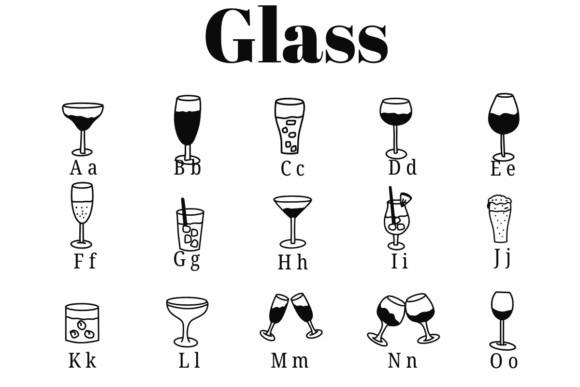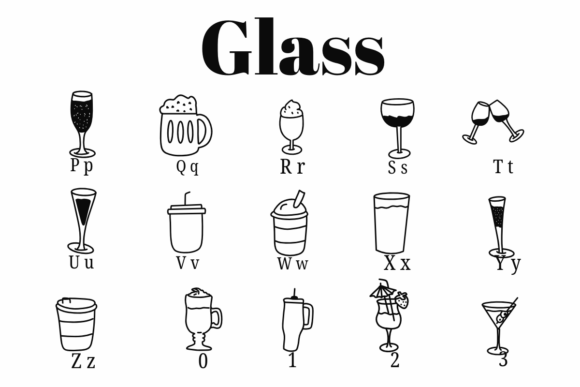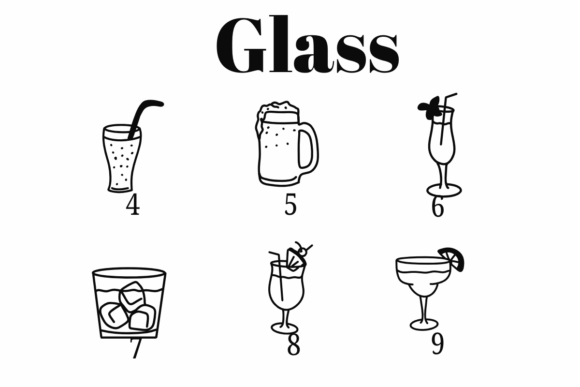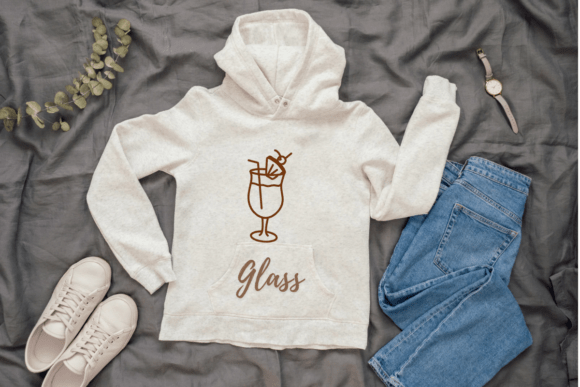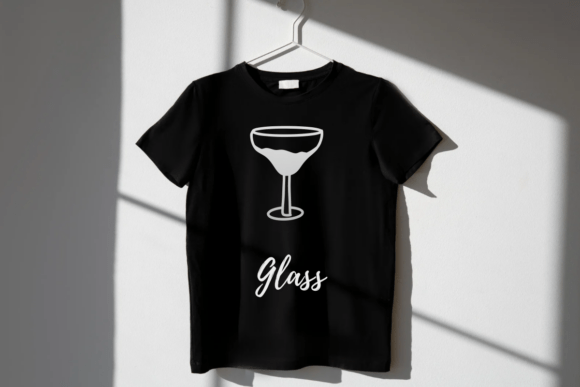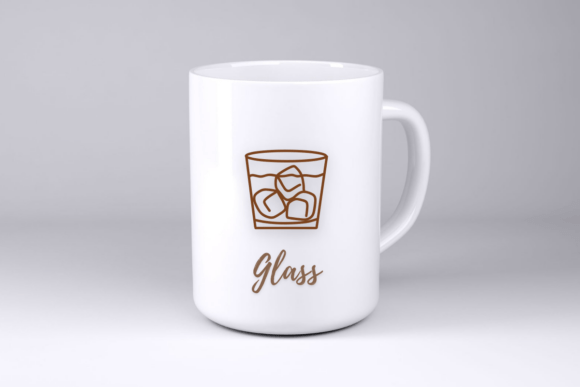
Introducing Glass Font: Elevate Your Creative Projects with a Unique Sketch Style
Are you a designer, crafter, or DIY enthusiast looking for a font that can add a touch of elegance and whimsy to your projects? Look no further than Glass Font, a stunning dingbats font with a theme that features a beautiful sketch style. This versatile font is perfect for a wide range of creative projects, from wedding invitations and crafts to decorations, logos, and more.
What is Glass Font?
Glass Font is a unique dingbats font that is designed to resemble a sketch style, giving it a charming and hand-drawn feel. The font features intricate illustrations and delicate lines that are sure to add a touch of sophistication to any project. With its glass-like theme, this font is perfect for creating elegant and eye-catching designs that are sure to impress.
Uses for Glass Font
Glass Font is an incredibly versatile font that can be used for a wide range of creative projects. Here are just a few ideas to get you started:
- Wedding Invitations: Add a touch of elegance to your wedding invitations with Glass Font. The font’s delicate lines and intricate illustrations make it perfect for creating beautiful and sophisticated wedding stationery.
- DIY Projects: Whether you’re creating handmade cards, gift tags, or decorations, Glass Font is the perfect choice. The font’s sketch style gives it a charming and homemade feel that’s sure to add a personal touch to your DIY projects.
- Crafts: From scrapbooking to paper crafting, Glass Font is a great choice for any craft project. The font’s intricate illustrations and delicate lines make it perfect for creating beautiful and intricate designs.
- Logos: If you’re looking for a font that can help your logo stand out, Glass Font is a great choice. The font’s unique sketch style gives it a distinctive look that’s sure to help your brand stand out.
- Decorations: Whether you’re creating signs, banners, or other decorations, Glass Font is a great choice. The font’s elegant and sophisticated style makes it perfect for creating beautiful and eye-catching decorations.
Benefits of Using Glass Font
There are many benefits to using Glass Font for your creative projects. Here are just a few:
- Unique and Eye-Catching: Glass Font’s unique sketch style makes it a standout from other fonts. Its intricate illustrations and delicate lines are sure to add a touch of elegance and sophistication to any project.
- Versatile: Glass Font is incredibly versatile and can be used for a wide range of creative projects. Whether you’re creating wedding invitations, DIY projects, or logos, this font is a great choice.
- High-Quality: Glass Font is a high-quality font that is designed to look great in any size or resolution. Whether you’re creating a small gift tag or a large banner, this font is sure to look beautiful.
Tips for Using Glass Font
Here are a few tips for using Glass Font in your creative projects:
- Use it Sparingly: While Glass Font is a beautiful font, it can be overwhelming if used too much. Use it sparingly to add a touch of elegance and sophistication to your projects.
- Experiment with Colors: Glass Font looks great in a variety of colors, so don’t be afraid to experiment. Try using different colors to add a pop of color to your projects.
- Pair it with Other Fonts: Glass Font pairs well with a variety of other fonts, so try pairing it with a simple sans-serif font to create a beautiful contrast.
Glass Font is a beautiful and versatile font that is perfect for designers, crafters, and DIY enthusiasts. Its unique sketch style and intricate illustrations make it a standout from other fonts, and its ease of use and high-quality design make it a great choice for any creative project. Whether you’re creating wedding invitations, DIY projects, or logos, Glass Font is sure to add a touch of elegance and sophistication to your designs.